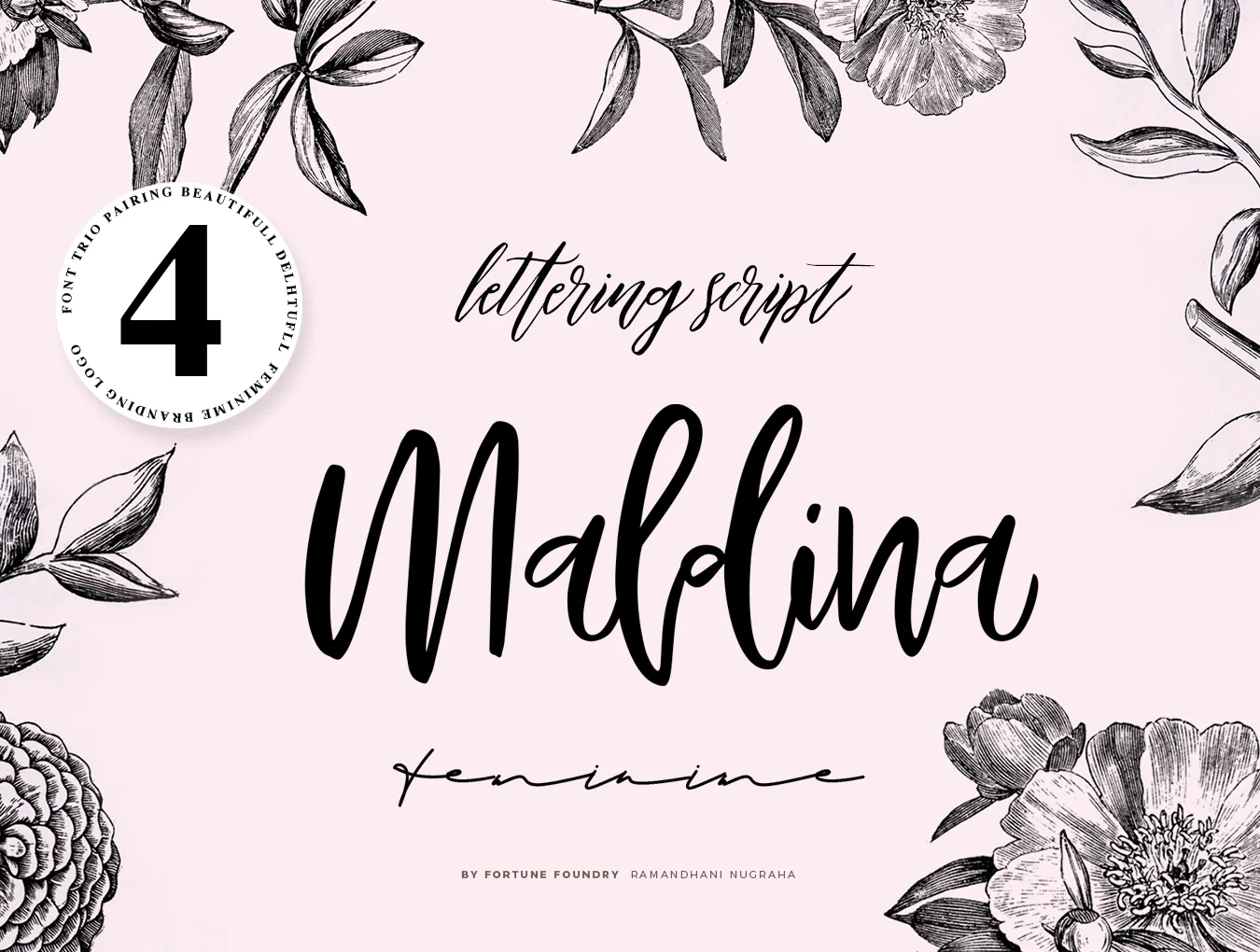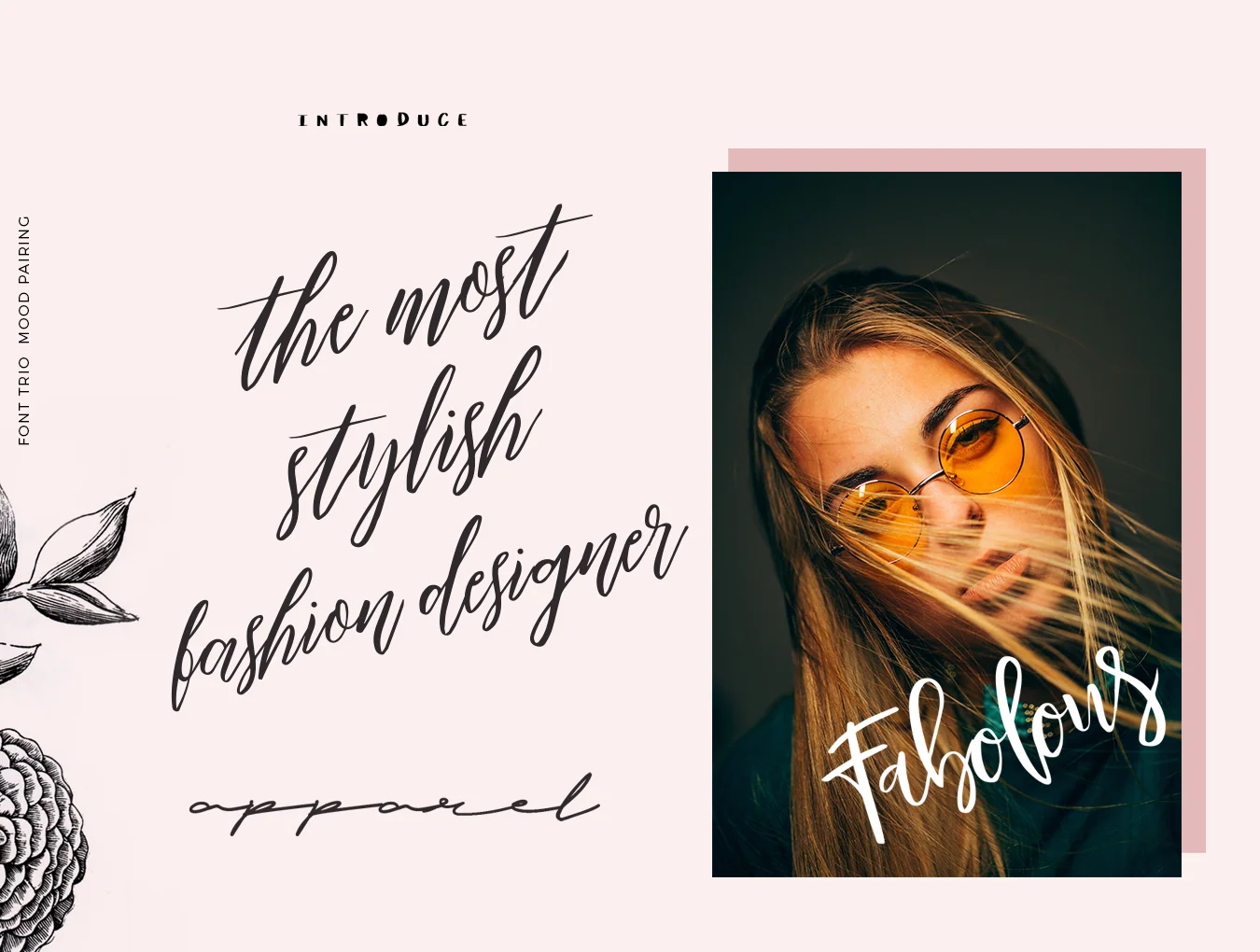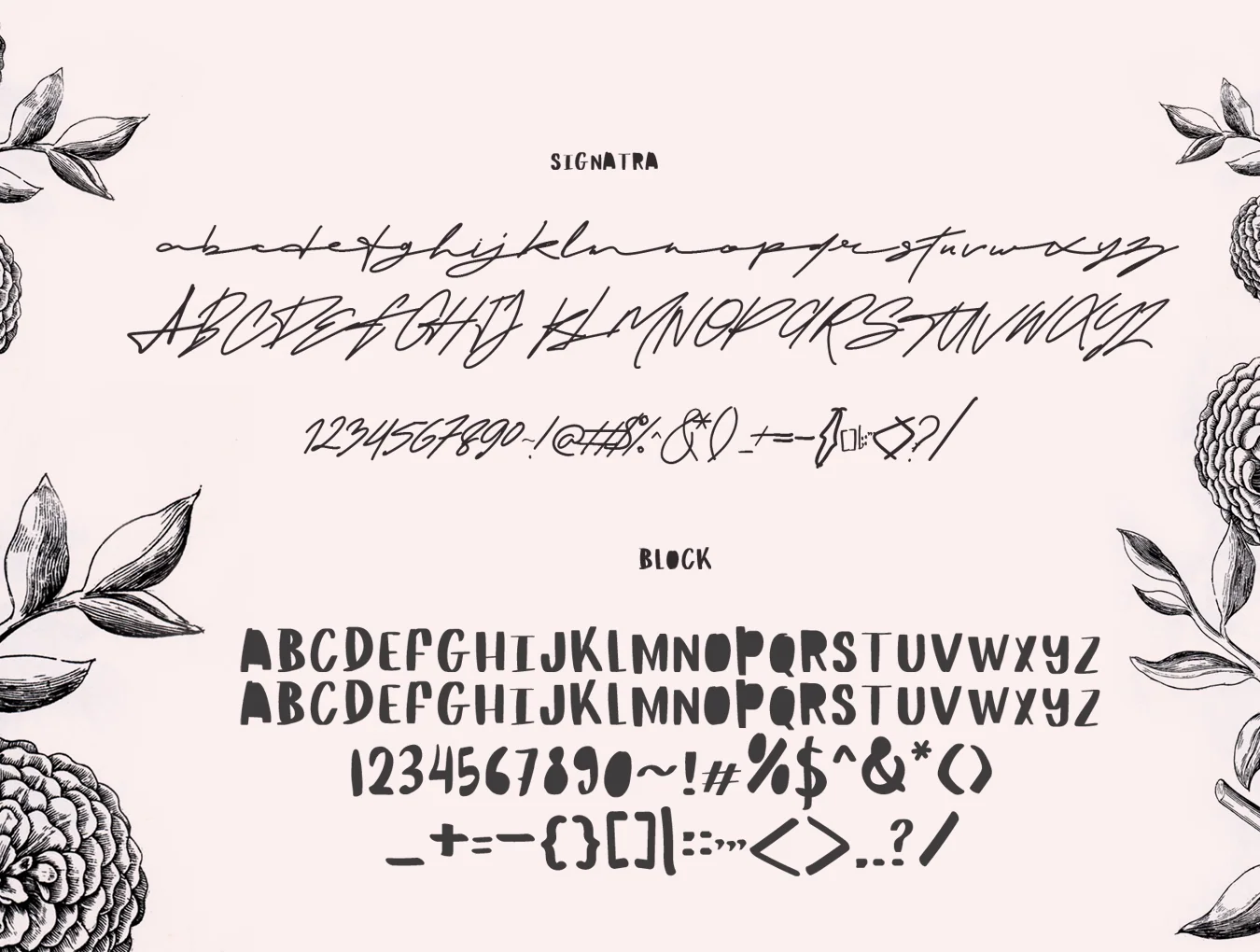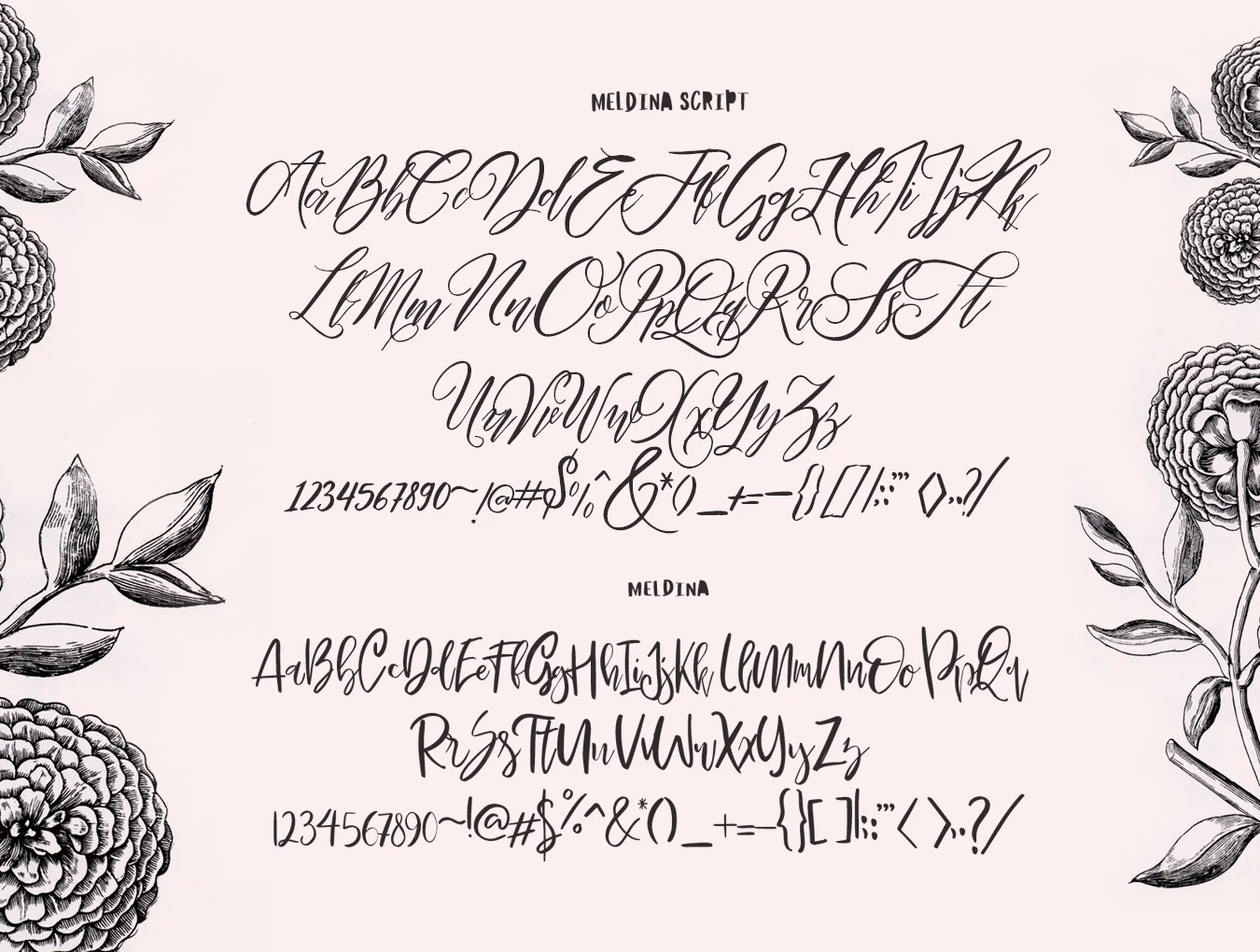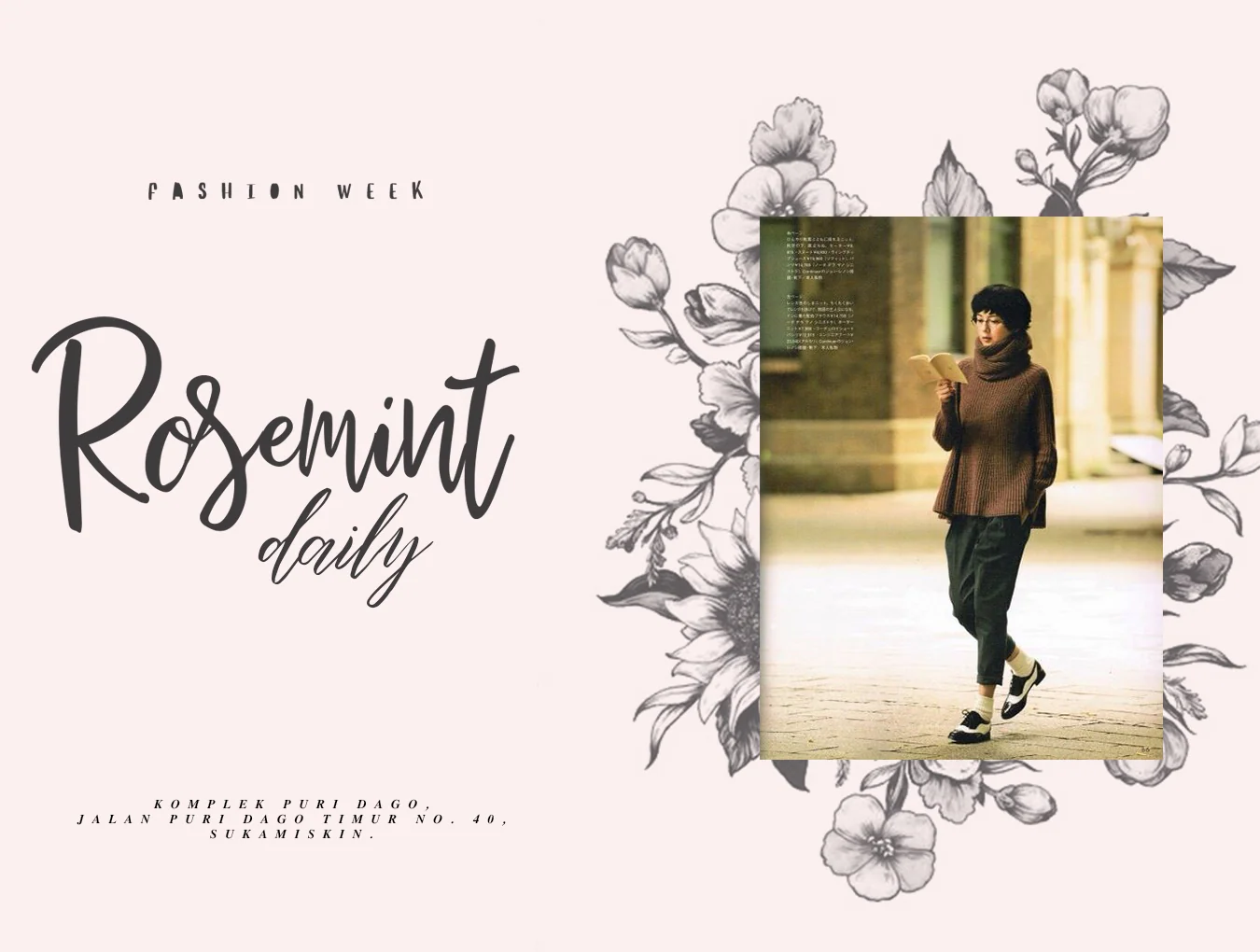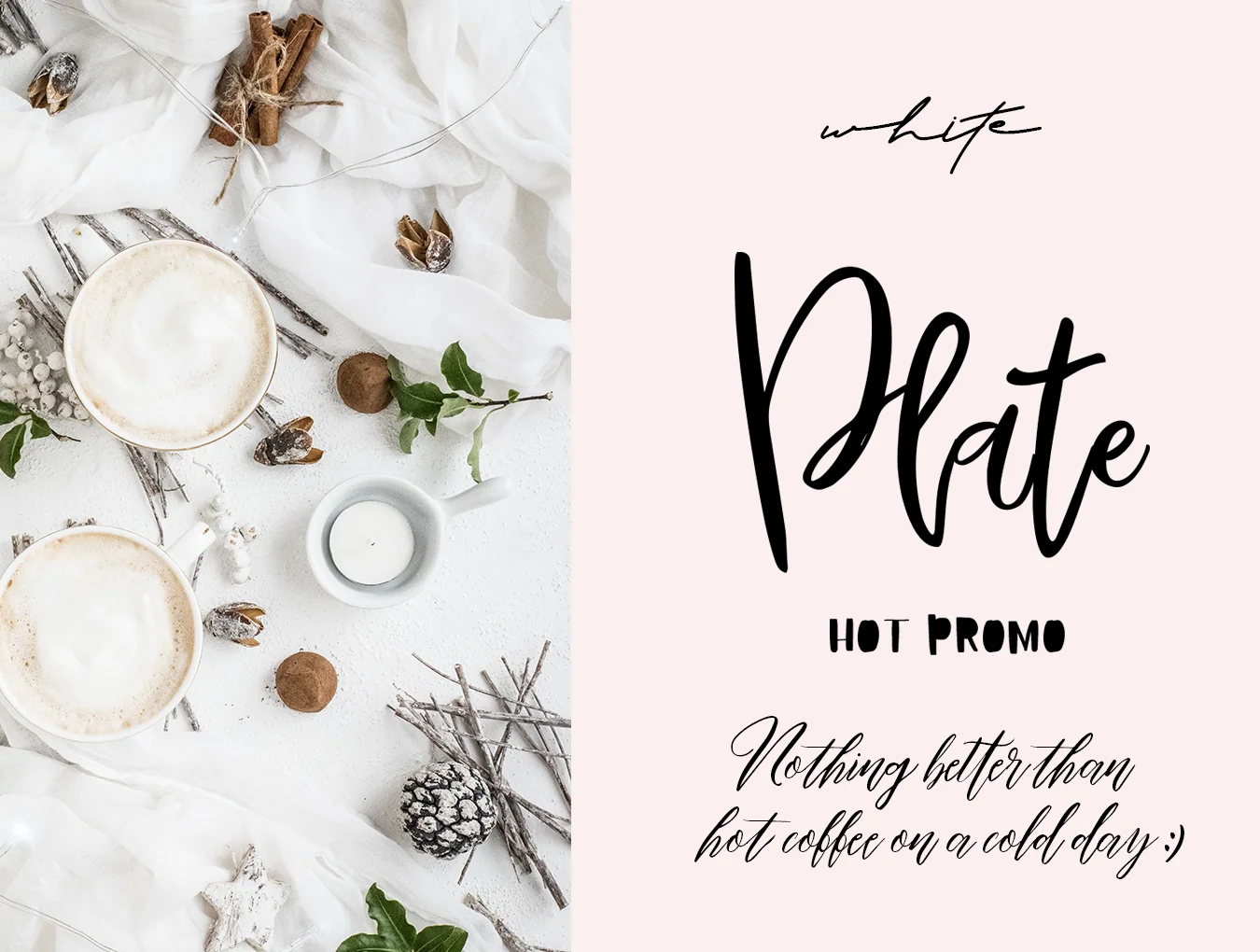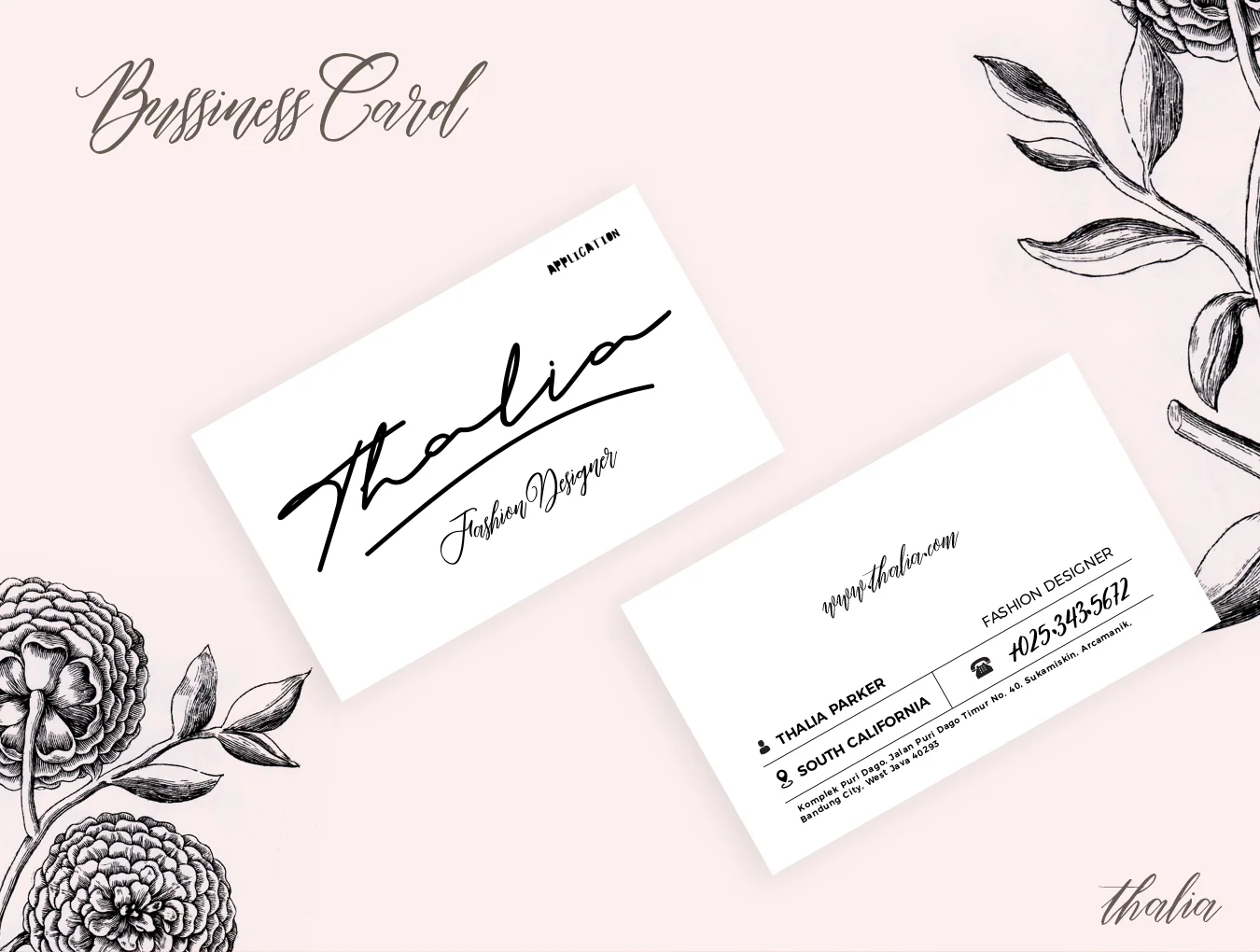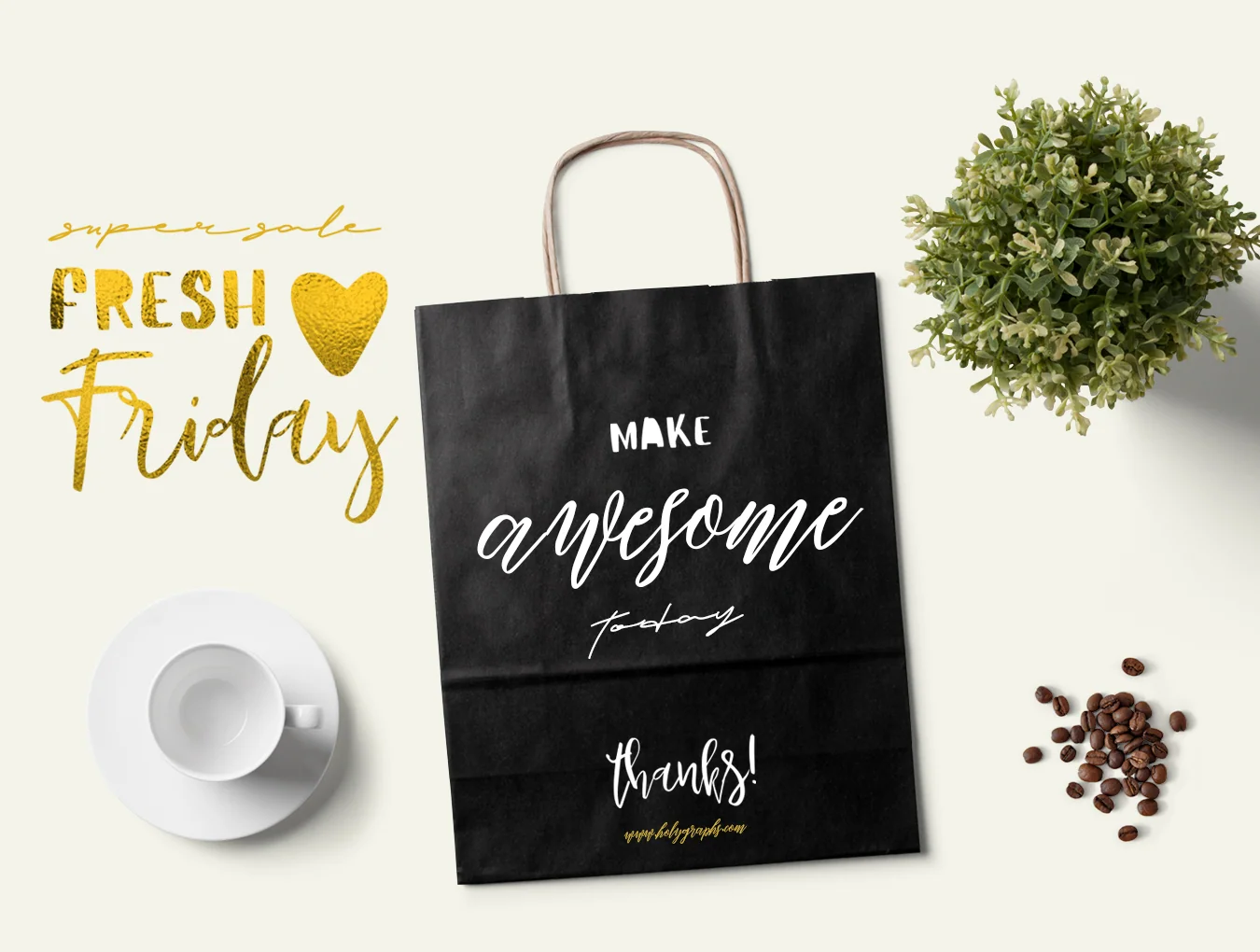
Maldina Feminine
Set of 4 elegant handcrafted fonts
Set of 4 fonts
Hand-crafted lettering
Regular, script, and bold font styles
Maldina is a handcrafted typeface family designed for font pairing. It works well for branding, events, invitations, gift promo cards, quotes, posters, signatures, name cards, charming Instagram posts, and more. The set includes four styles: Maldina Regular, Maldina Script, Block, and Signatra.